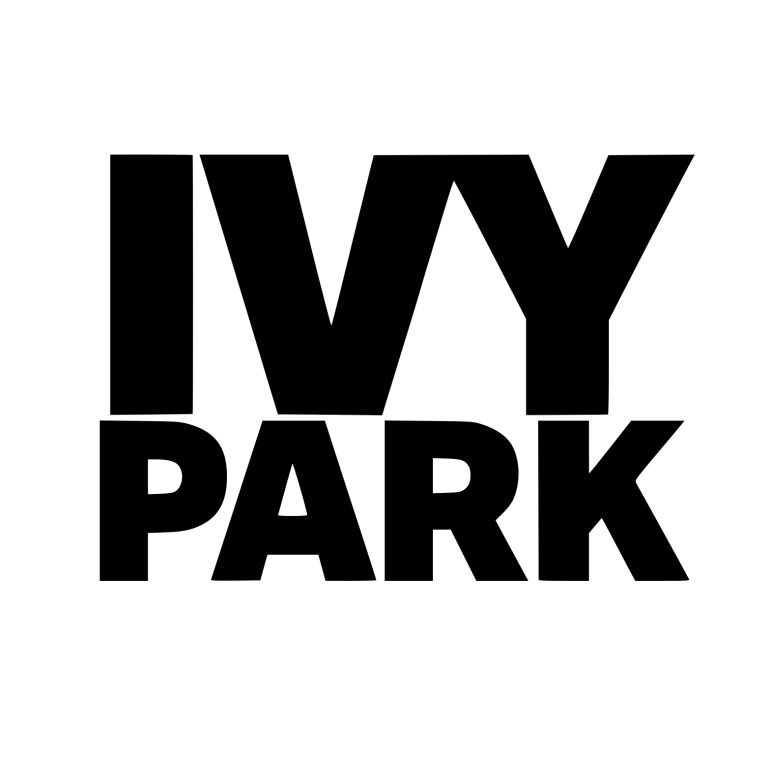
Ivy Park Font
ApparelIvy Park is a sportswear and athleisure brand founded by singer and actress Beyoncé in 2016. The brand offers a range of products, including leggings, sports bras, jackets, and more, all of which are designed with the modern, active woman in mind.
The Ivy Park clothing brand seems to use a grotesque sans-serif called Aktiv Grotesk Black. In 2010, Dalton Maag created Aktiv Grotesk, with 8 weights variations from Hairline to Black, each with a corresponding italic.